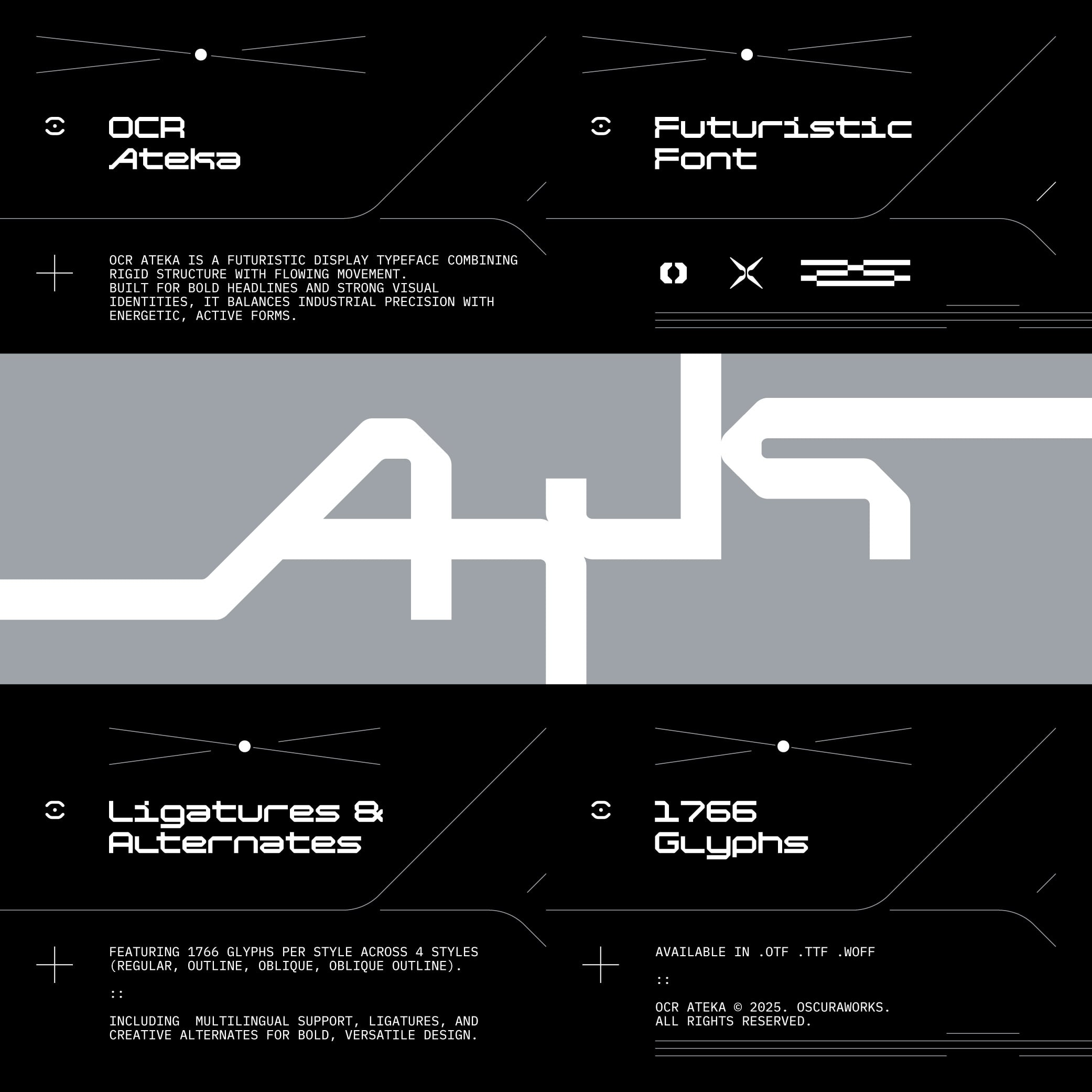
OCR Ateka
OCR Ateka is a futuristic display typeface that masterfully combines rigid industrial structure with flowing, energetic movement. Designed for designers who refuse to compromise between precision and style, this font balances the raw power of machinery with the active forms of modern sci-fi aesthetics.
Built specifically for bold headlines and strong visual identities, OCR Ateka is not just a font—it is a design system. Whether you are crafting a cyberpunk logo, an experimental poster, or a high-impact sci-fi brand identity, this typeface delivers an unmistakable visual punch.
Why Choose OCR Ateka?
• Unrivaled Flexibility: With 4 unique styles (Regular, Oblique, Outline, and Oblique Outline), you can layer and mix weights to create depth and texture in your layouts.
• Deep Customization: Featuring a massive library of 1766 glyphs per style, OCR Ateka gives you access to extensive alternates and ligatures. This allows you to fine-tune your typography until it is perfectly unique to your project.
• Global Reach: Full multilingual support ensures your message resonates worldwide without breaking the aesthetic.
Font Specifications:
• Glyph Count: 1766 glyphs per style (Deep Multilingual Support)
• Styles: 4 (Regular, Oblique, Outline, Oblique Outline)
• Character Set: Uppercase, lowercase, numbers, symbols, standard & discretionary ligatures, stylistic alternates.